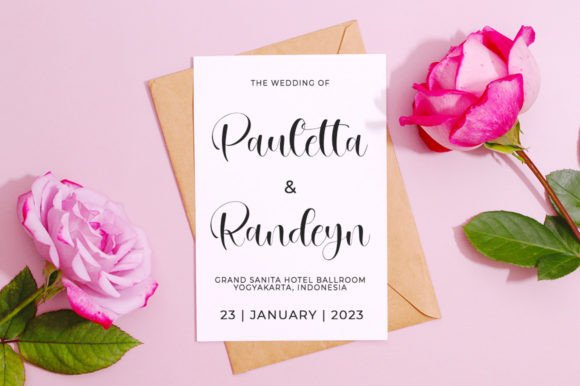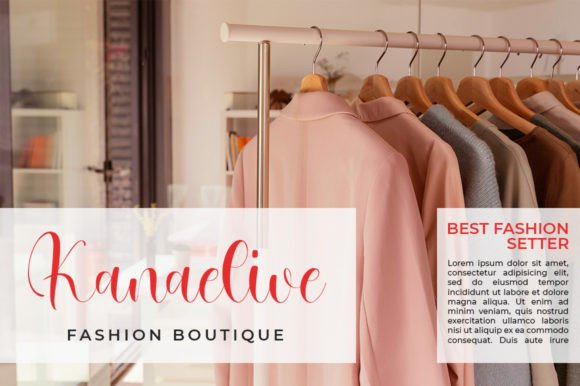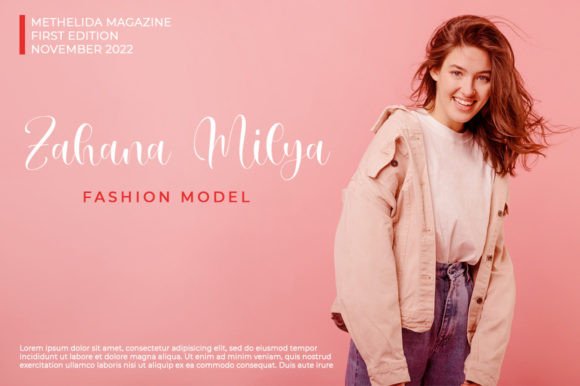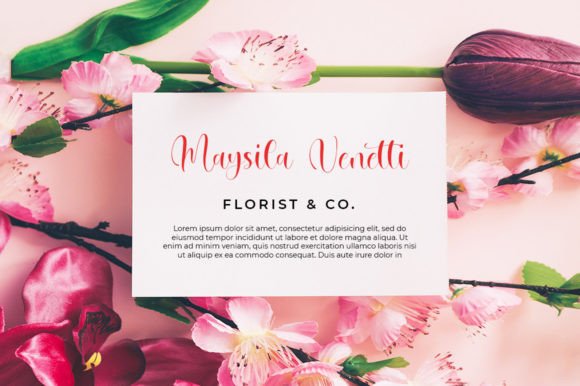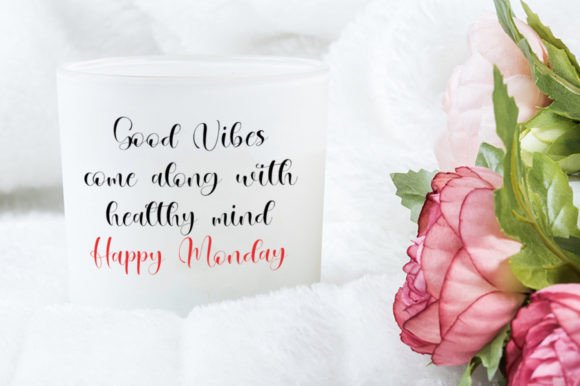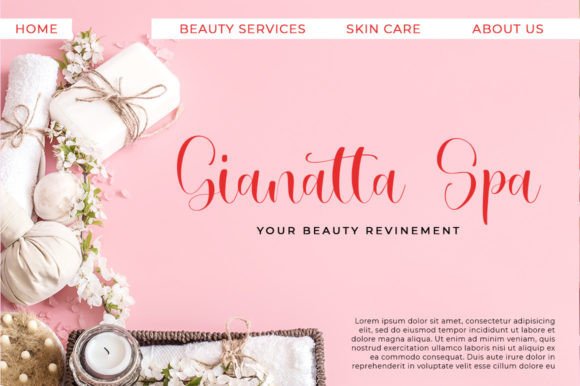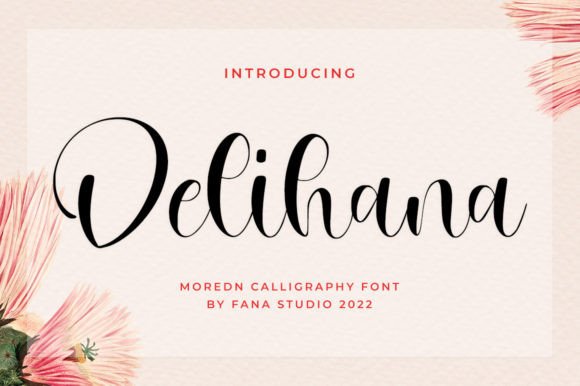
Introducing Delihana Font: Elevate Your Designs with Elegance and Sophistication
In the world of digital design, typography plays a crucial role in conveying the tone and aesthetic of a project. For designers and crafters seeking to add a touch of elegance and sophistication to their work, the Delihana Font is an exceptional choice. This stylish handwritten font is designed to bring a personal touch to your latest art project, boasting an elegant, classy, and modern look that is sure to captivate your audience.
The Delihana Script: A Masterpiece of Typographic Excellence
The Delihana Script is a gorgeous typographic font that offers a wide range of creative possibilities. Its beautiful, flowing script is perfect for various projects, including logos and branding, invitations, stationery, wedding designs, social media posts, advertisements, product packaging, product designs, labels, photography, watermarks, special events, and anything that requires a touch of handwriting elegance.
Key Features of Delihana Font
• Elegant and Classy Design: Delihana Font features a sophisticated and refined design that adds a touch of luxury to any project.
• Handwritten Style: The font’s handwritten style gives it a personal and unique touch, making it perfect for designs that require a human touch.
• Modern Look: Delihana Font’s modern aesthetic ensures that your designs look contemporary and fresh, making it ideal for projects that require a cutting-edge feel.
• Versatile: The font is suitable for a wide range of projects, from logos and branding to social media posts and product packaging.
Why Choose Delihana Font?
With Delihana Font, you can elevate your designs and give them a professional, high-end look. The font’s elegant and classy design makes it perfect for designers and crafters who want to create sophisticated and refined designs. Additionally, the font’s versatility ensures that you can use it for various projects, saving you time and effort in the long run.
Delihana Font is an excellent choice for designers and crafters who want to add a touch of elegance and sophistication to their work. Whether you’re working on a logo, invitation, or social media post, this font is sure to impress. Its beautiful, flowing script and modern aesthetic make it perfect for a wide range of projects, from wedding designs and product packaging to photography and special events.
Tips for Using Delihana Font
• Pair it with Other Fonts: Delihana Font pairs well with other fonts, making it easy to create a unique and visually appealing design.
• Experiment with Colors: The font’s elegant design looks great with a variety of colors, so don’t be afraid to experiment and find the perfect combination for your project.
• Use it for Headings and Titles: Delihana Font is perfect for headings and titles, adding a touch of elegance and sophistication to your designs.
In conclusion, Delihana Font is a stylish handwritten font that offers a personal touch to your latest art project with an elegant, classy, and modern look. Its gorgeous typographic design makes it perfect for a wide range of projects, from logos and branding to social media posts and product packaging. With its versatility, elegance, and modern aesthetic, Delihana Font is an excellent choice for designers and crafters seeking to elevate their designs and give them a professional, high-end look.